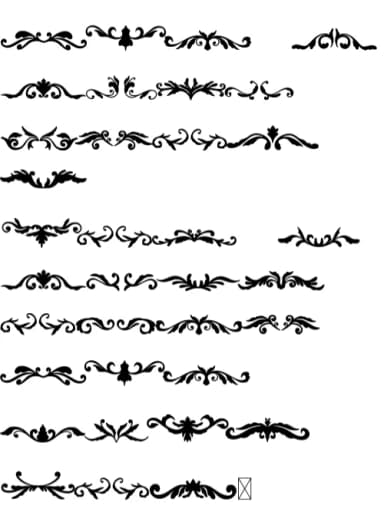
Wastern Divider by Sakti Avellin is a playful dingbat collection that brings hand-drawn charm and decorative flourishes to creative work. It includes both uppercase and lowercase glyphs rendered as ornamental marks, dividers, and pattern elements that function beautifully as standalone accents or as layered decorative components in larger compositions. Rather than feeling generic or corporate, these marks carry genuine sketchy personality that reads as intentional and human-made, lending a specific mood to whatever you're building.
The real value here emerges when you're building custom wedding invitation suites where you need ornamental breaks between text blocks, or designing birthday card layouts that genuinely benefit from hand-drawn visual texture rather than basic clipart. Craft makers and DIY enthusiasts layer these marks into printable gift tags and sticker designs for small businesses or personal projects. Social media creators use them as graphic overlays and composition dividers in flat-lay photography posts and story templates. Greeting card designers find it works equally well across holiday card production and everyday stationery where playful decoration matters far more than formal sophistication.
Wastern Divider Font is a versatile dingbats font that works for both headings and body text. Pair it with a contrasting sans-serif or serif font to add visual interest and a clear distinction between titles and body copy.